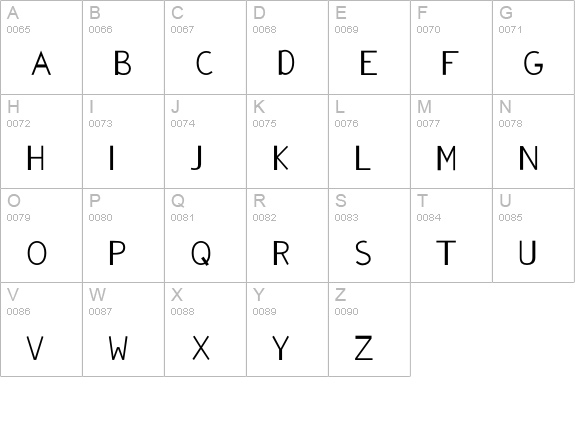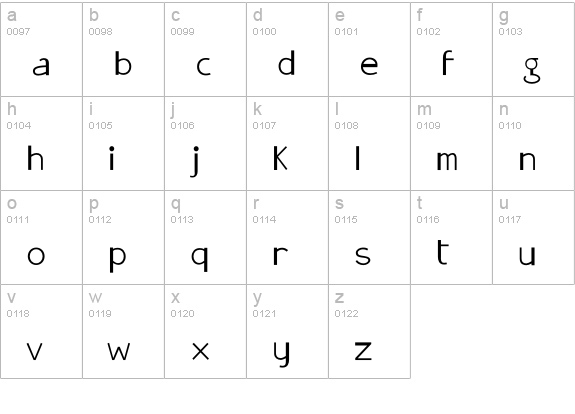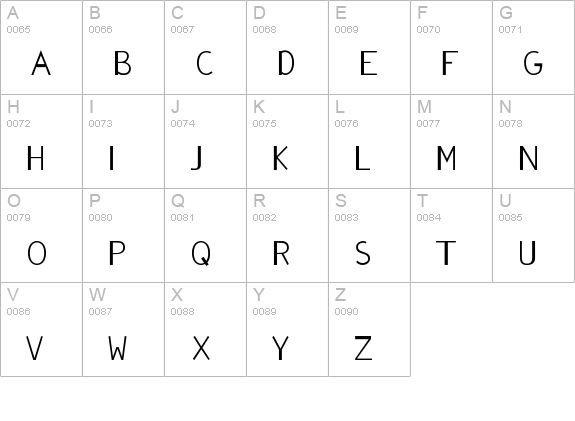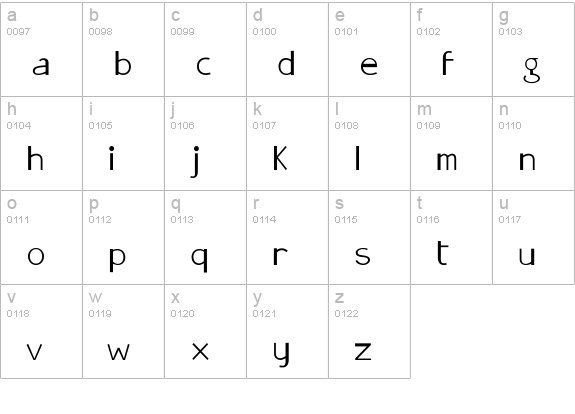
GonzaPlus Font Details
GonzaPlus is a sleek and modern font that exudes elegance and sophistication. With its clean lines and stylish curves, this typeface is perfect for a wide range of design projects, from branding to editorial design. The versatility of GonzaPlus makes it a must-have font for any designer looking to make a statement. The best part? GonzaPlus is available for free download at FontsMarket.com. That's right, you can add this beautiful font to your collection without spending a dime. Whether you're working on a personal project or a client's design, GonzaPlus will elevate your work to the next level. Don't miss out on this fantastic opportunity to enhance your designs with the stunning GonzaPlus font – download it today for free!